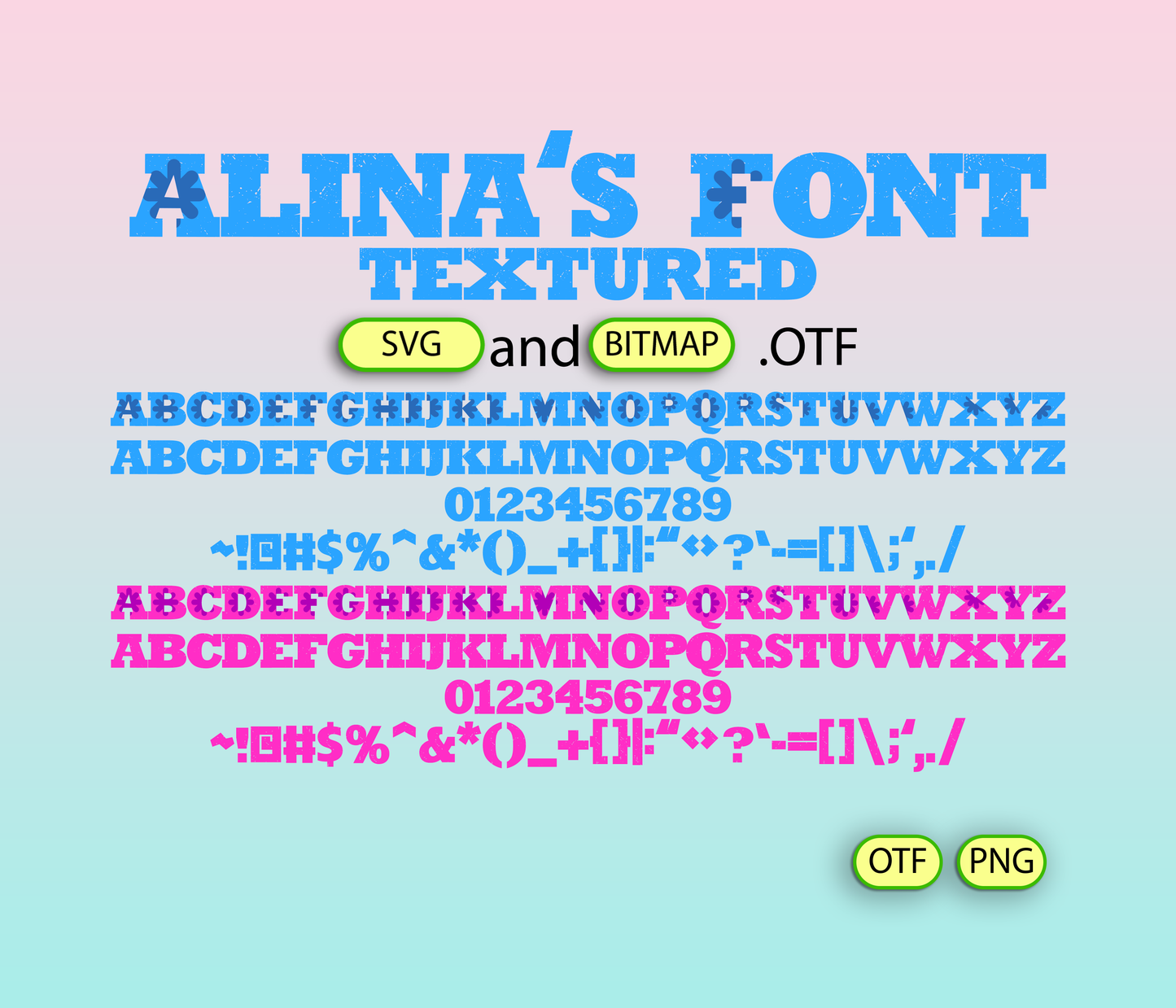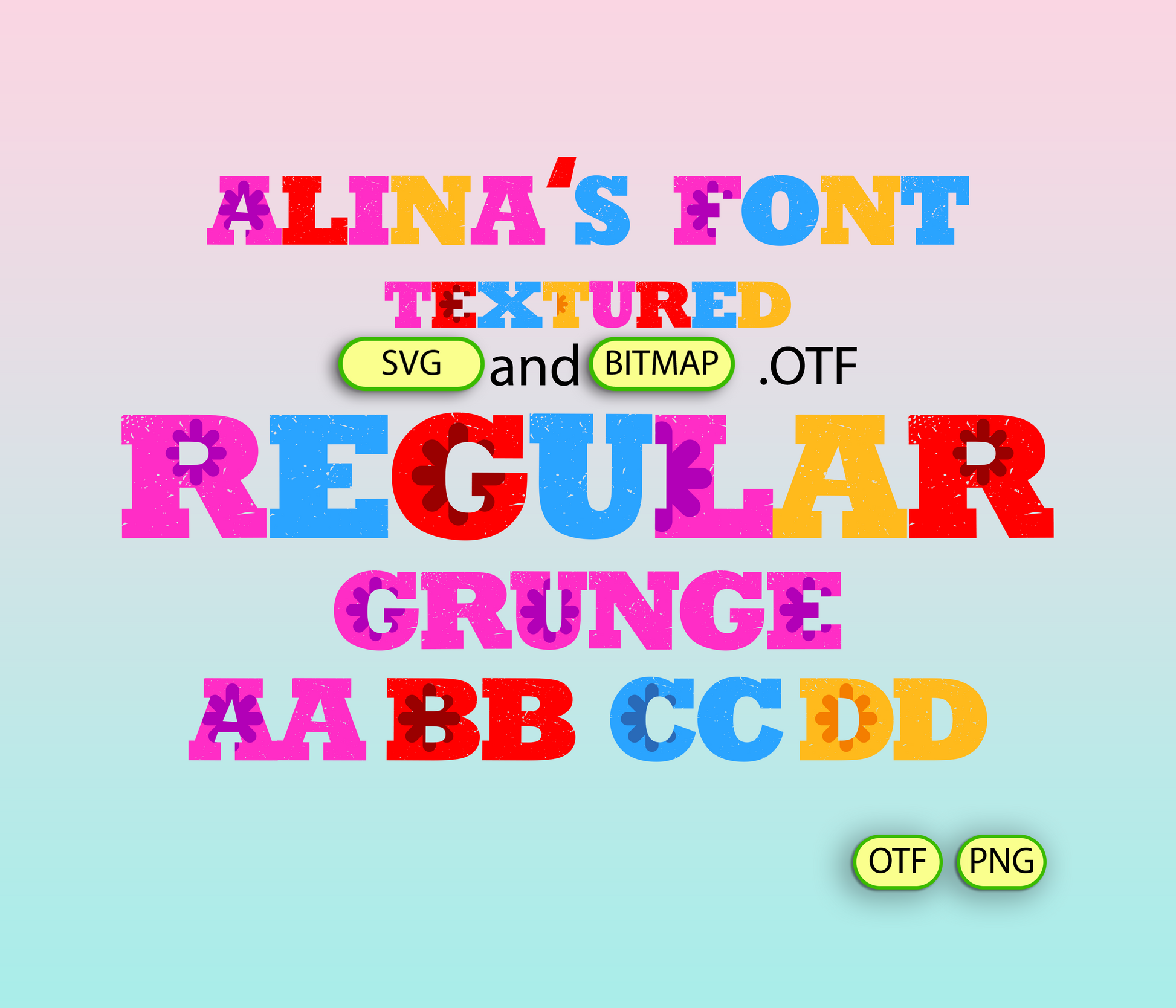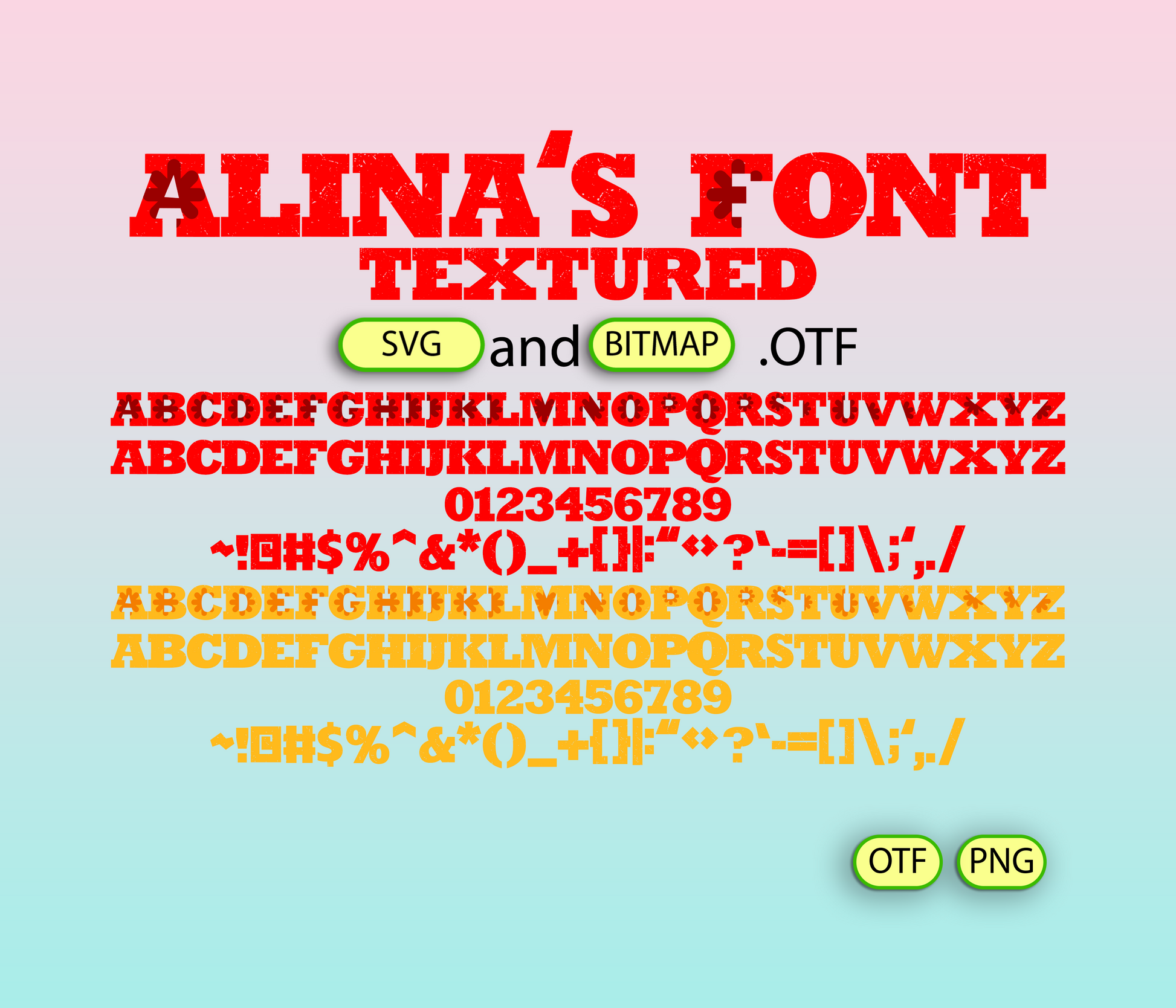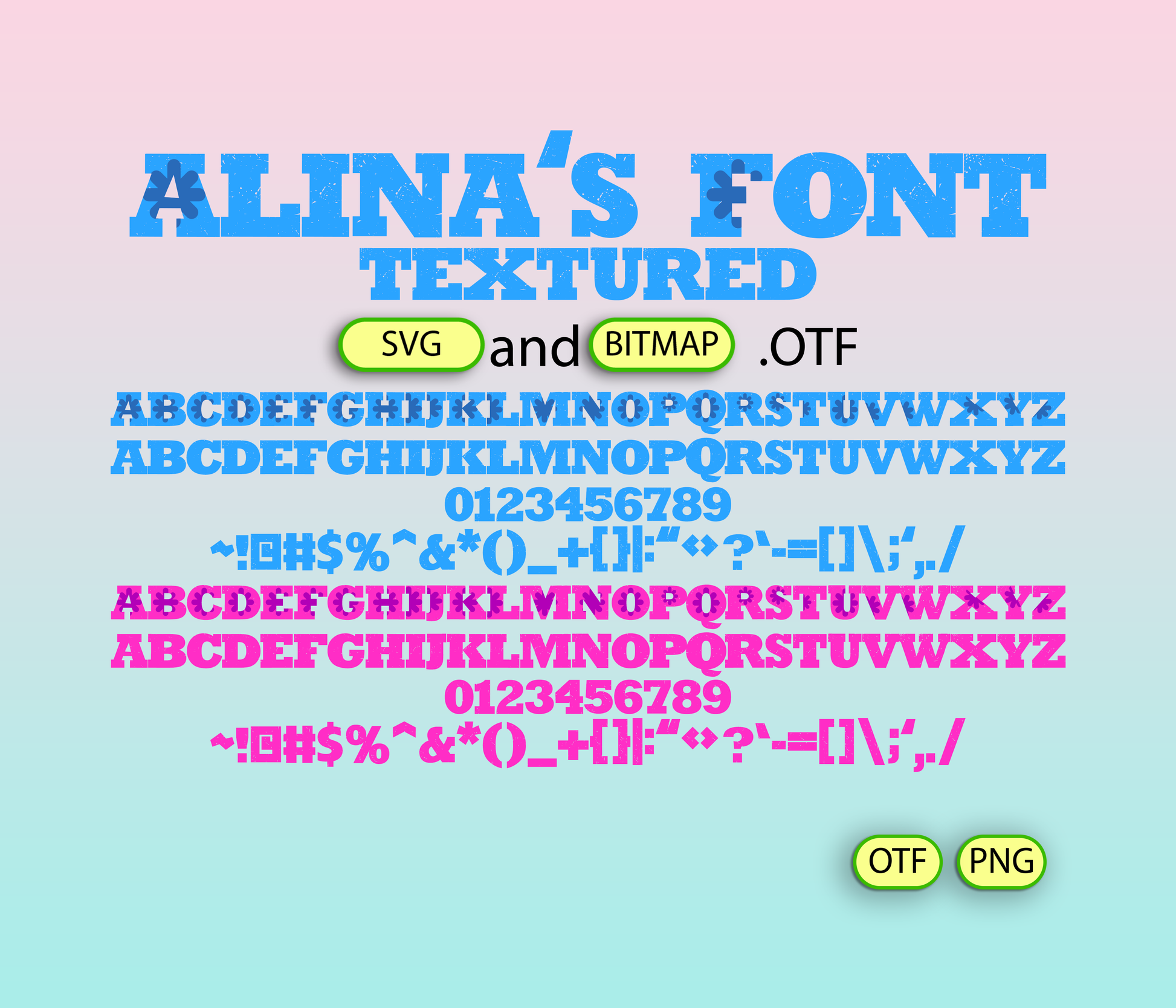
Cultural Celebration Fonts Textured Big Bundle
Cultural Celebration Fonts Textured Big Bundle For Crafting
Unveil a font inspired by the whimsical charm and vibrant culture showcased in beloved animated tales of family traditions. Our Cultural Celebration Colored Font is meticulously designed to channel the magic of heartwarming narratives into each stroke and curve. The textured details and lively hues offer a splendid blend of aesthetic allure and functionality, making it a prime choice for various crafting endeavors.
Whether you're crafting charming cake toppers, eye-catching birthday invitations, or unique apparel, this font ensures each creation captivates with a touch of enchantment. Its well-crafted design facilitates effortless integration into your crafting projects, melding creativity with ease-of-use.
The Cultural Celebration Colored Font is more than just a typeface; it's an invitation into a realm of imagination, resonating with the heartwarming narratives of cultural heritage and family bonds. Its diverse character set and robust design make it an ideal choice for those looking to infuse a dash of storytelling charm into their creations.
Elevate your crafting projects to a new level of creativity and storytelling with this distinctive font, letting every craft narrate a beautiful story. Perfect for designs inspired by vibrant festivals, family celebrations, or any project that calls for a touch of animated cultural flair.